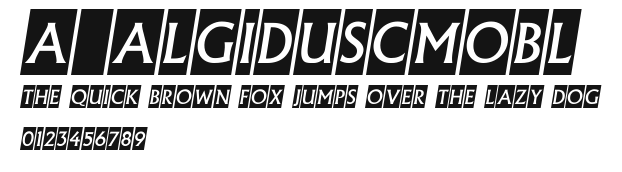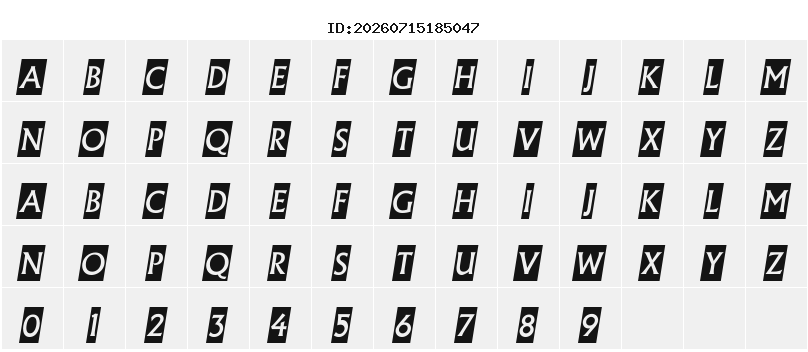
a_AlgidusCmObl Preview
• Designer: W.Chufarofsky & M.Slutsker
About a_AlgidusCmObl.ttf
a_AlgidusCmObl.ttf is a modern, elegant sans-serif font designed for ultimate readability and visual harmony. Perfect for branding, headlines, web design, and print materials.